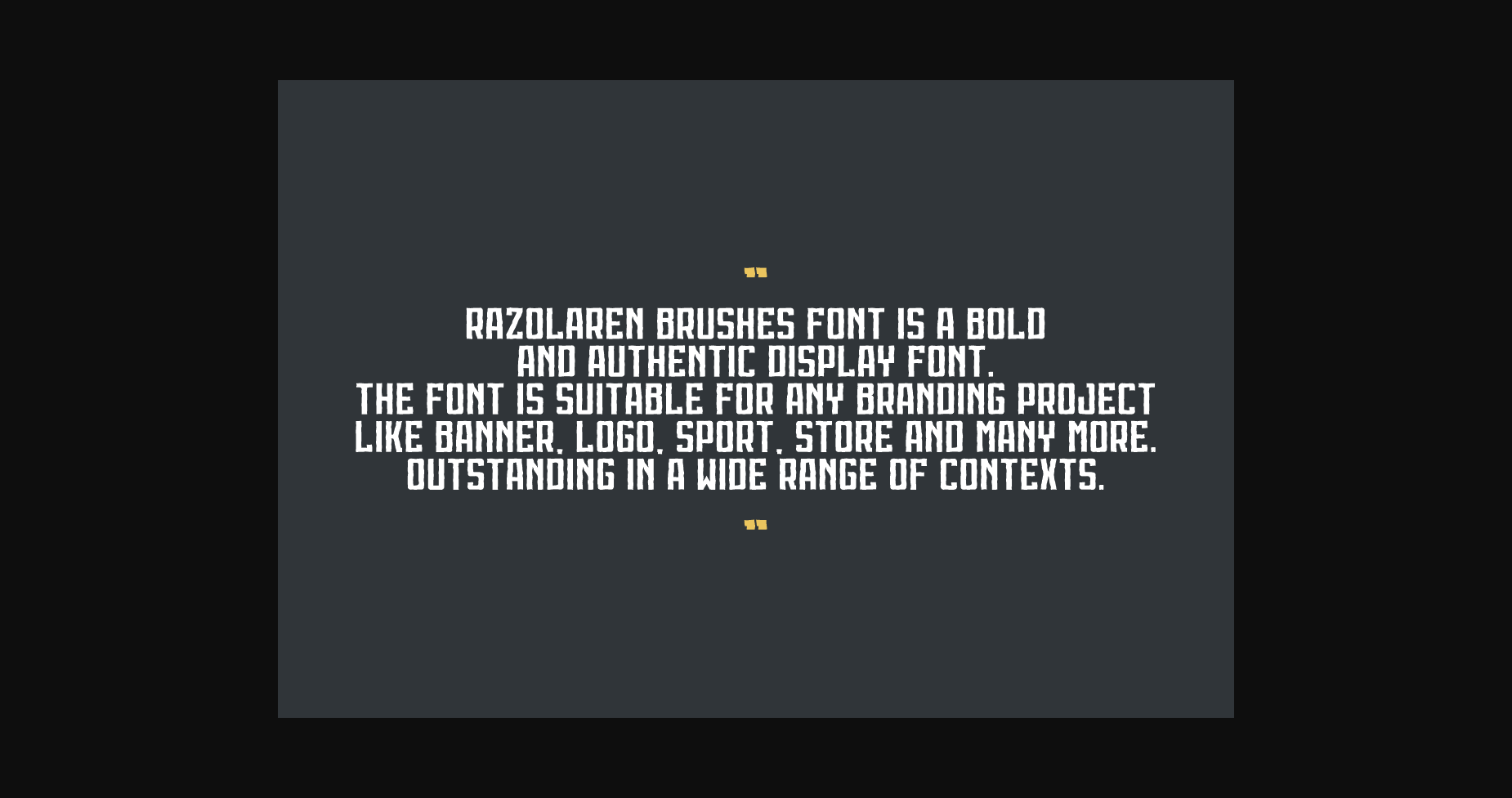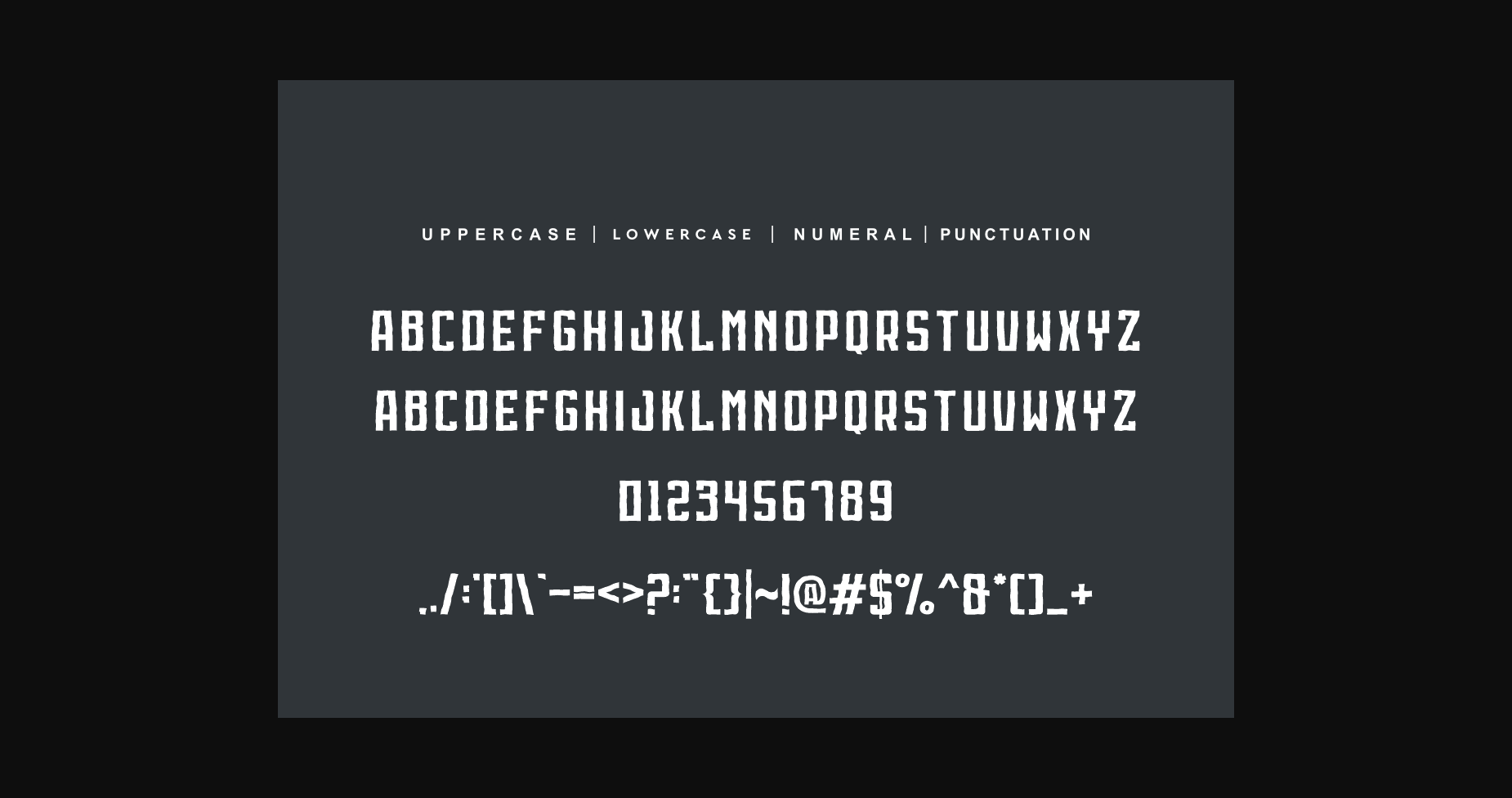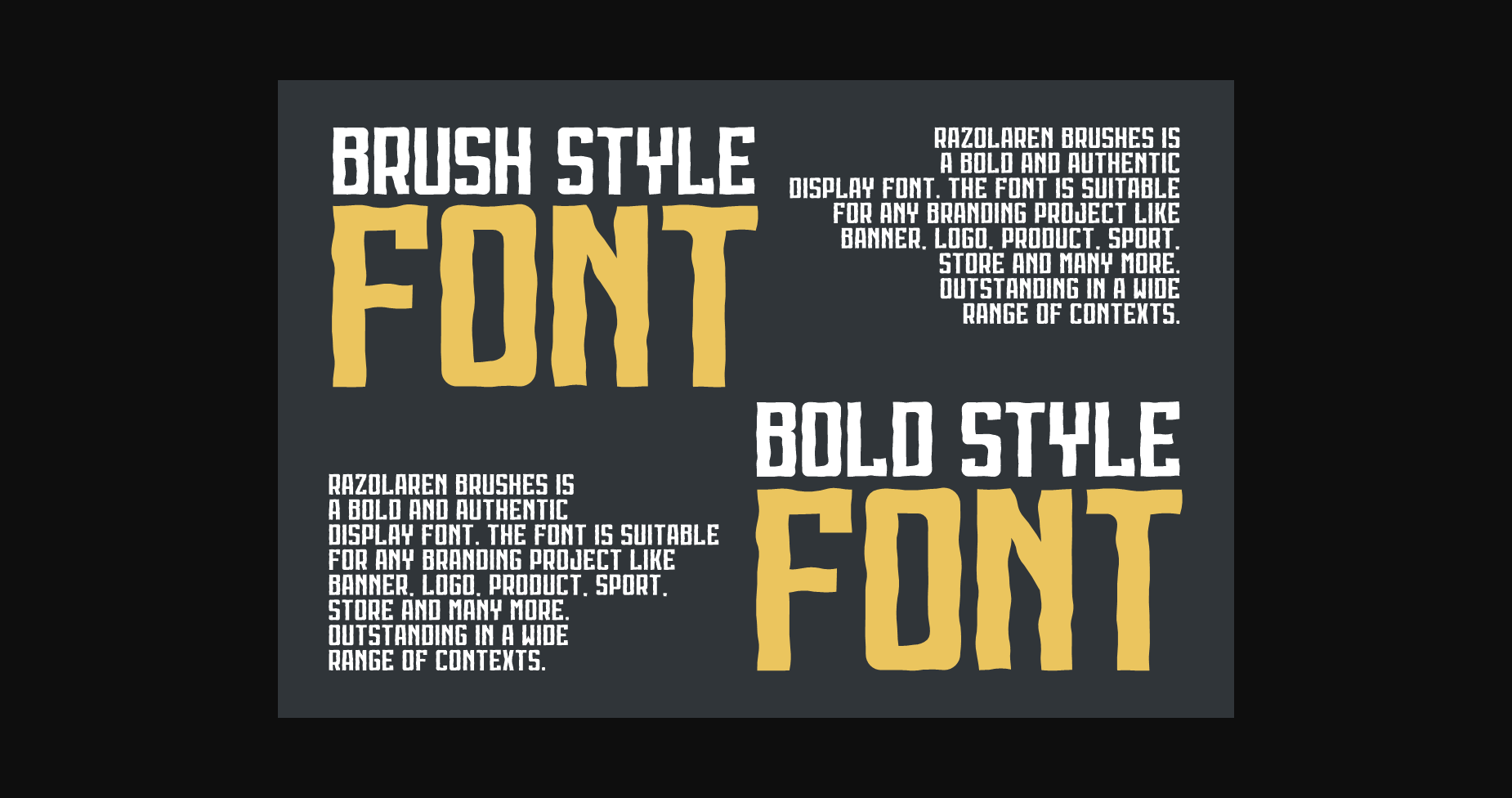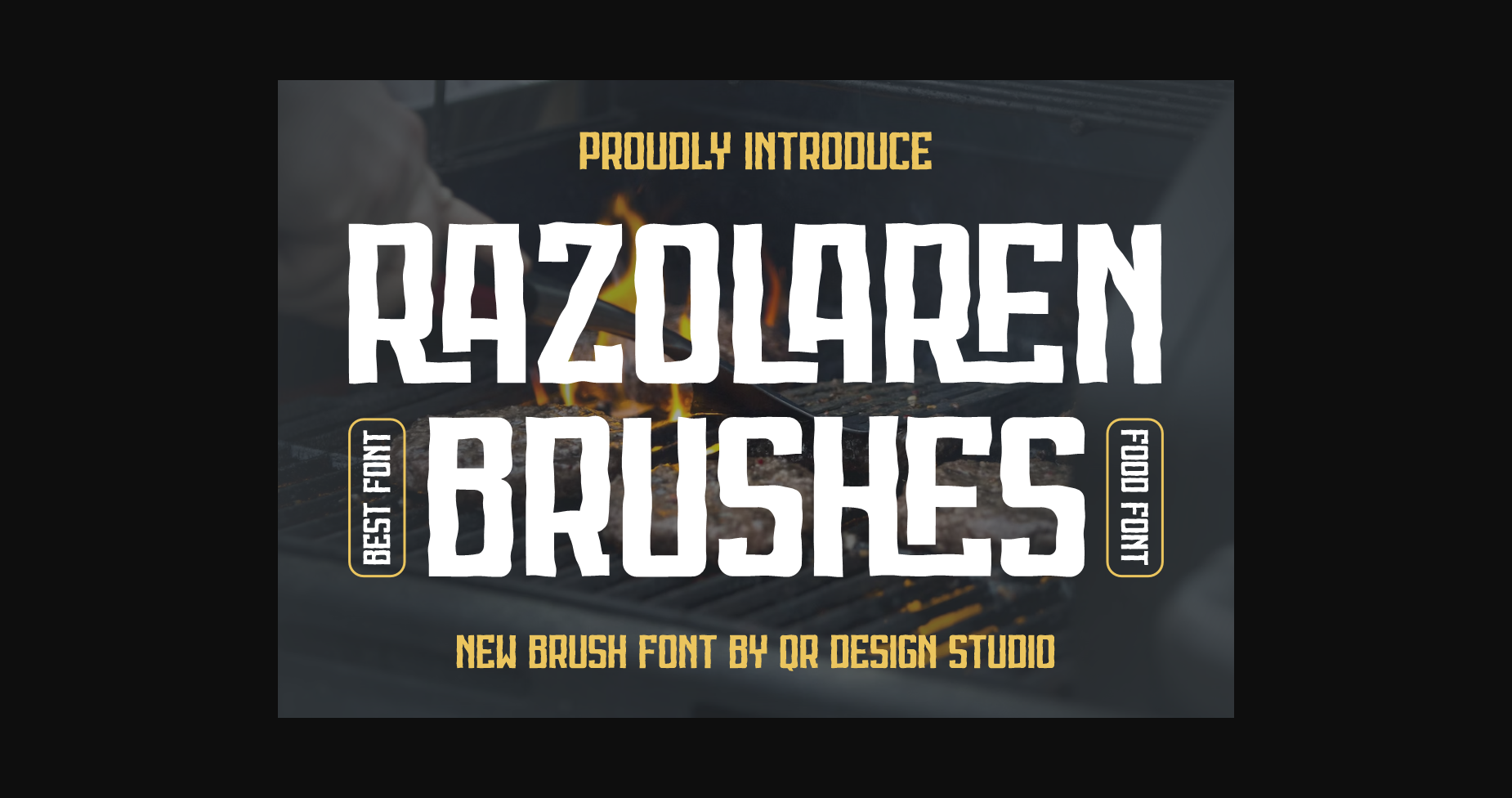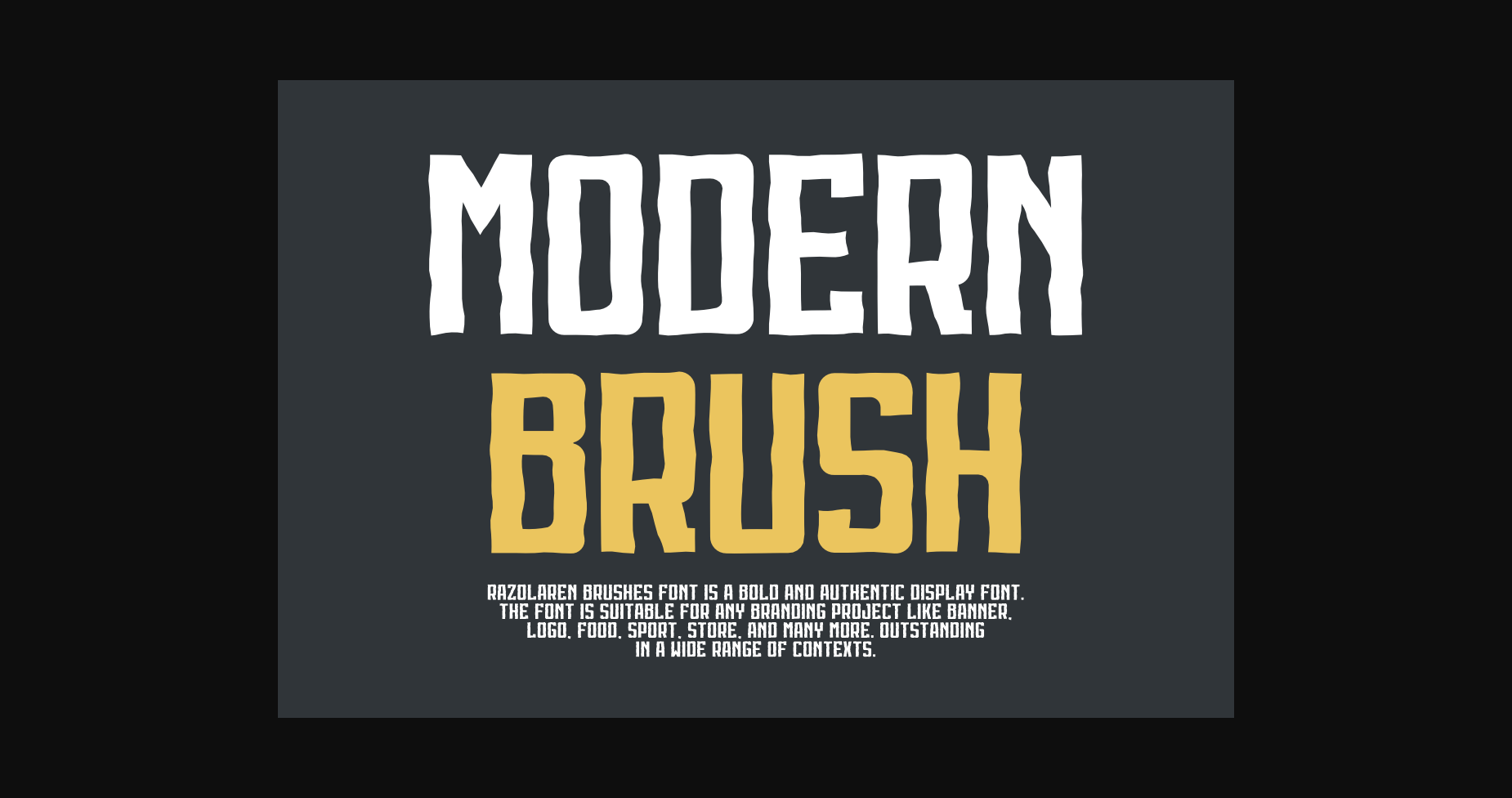
About Razolaren Brushes Font
Razolaren Brushes is an elegant and bold sans serif font. Fall in love with its incredibly versatile style and use it to create gorgeous wedding invitations, beautiful stationary art, eye-catching social media posts, and much more!